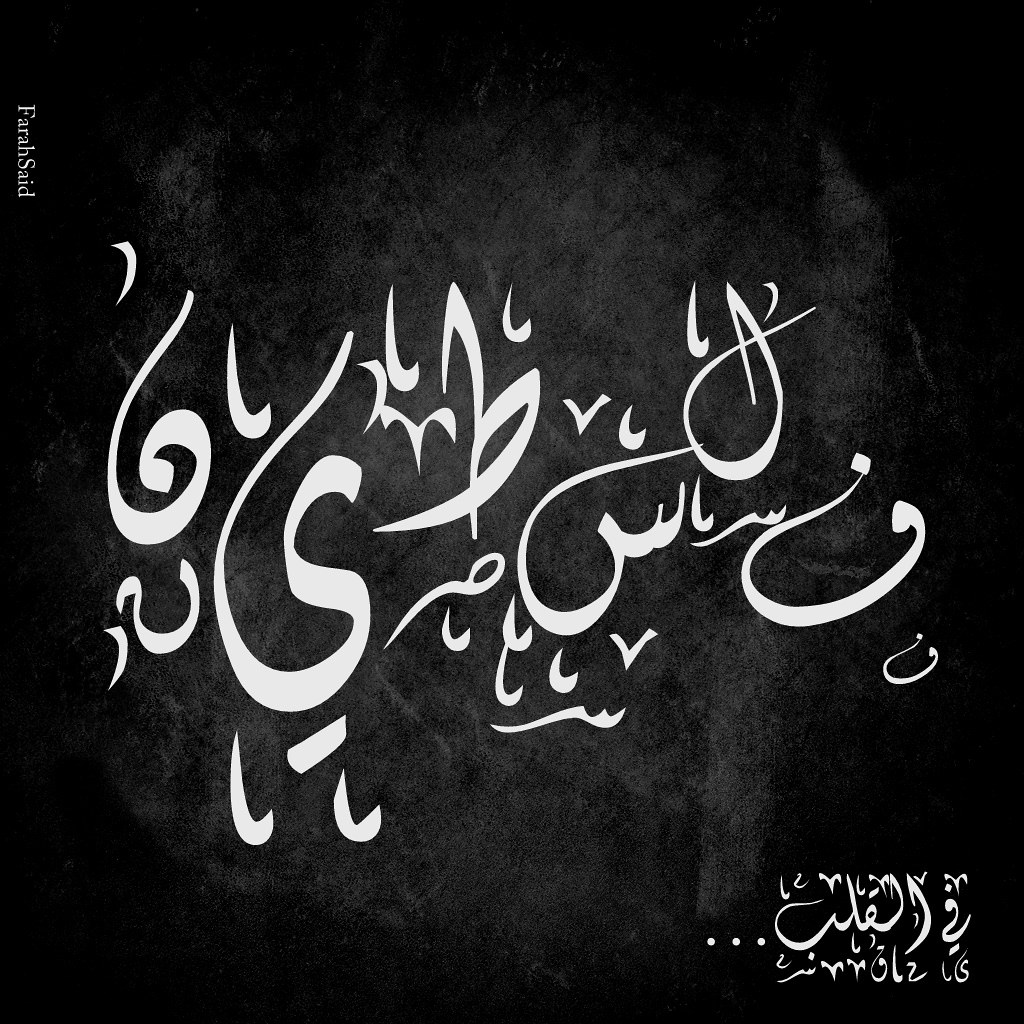
Click to find the best 73 free fonts in the decorative arabic style. For exquisite writing and formatting, there are curly variations, small sizes, and black font colorations, whereas strong, red letters. A maaf lahir batin by wep.
For Signages, Headlines, And Greeting Card Design Projects,.
Arabic Fonts, Because Of Their Distinctiveness And Decorative Appeal Have Driven The World Of Fonts And Graphic.